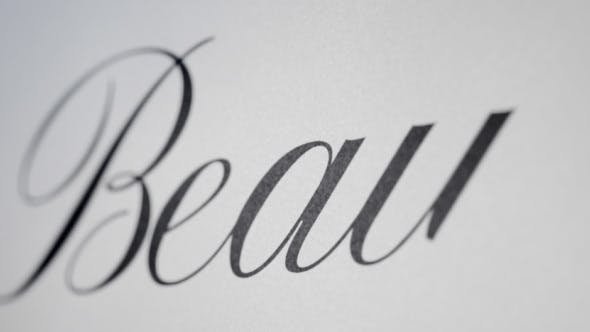
Beauty is an animated Typeface that can be used in several occasions like romantic openers, greeting cards or Intros. The letters are animated in a slow pace with 60 frames per seconds, that allows you to change the writing speed from very slow and detailed to fast without any quality loss.
Unlike other Animated Typefaces, you don’t need to drag each letter on its own into the timeline, you can actually write your text in a textbox and let the included Script “Typefacer” import all the necessary compositions with the click of a button. A videotutorial explains you how to work with the template and the script. As a little Bonus I included some writing-SoundFX.